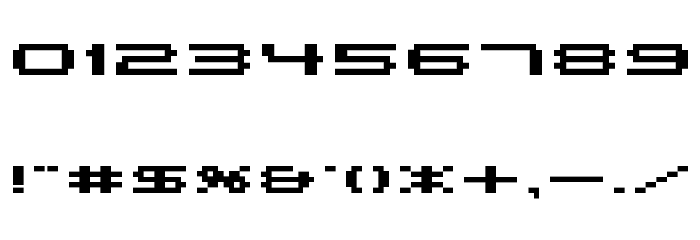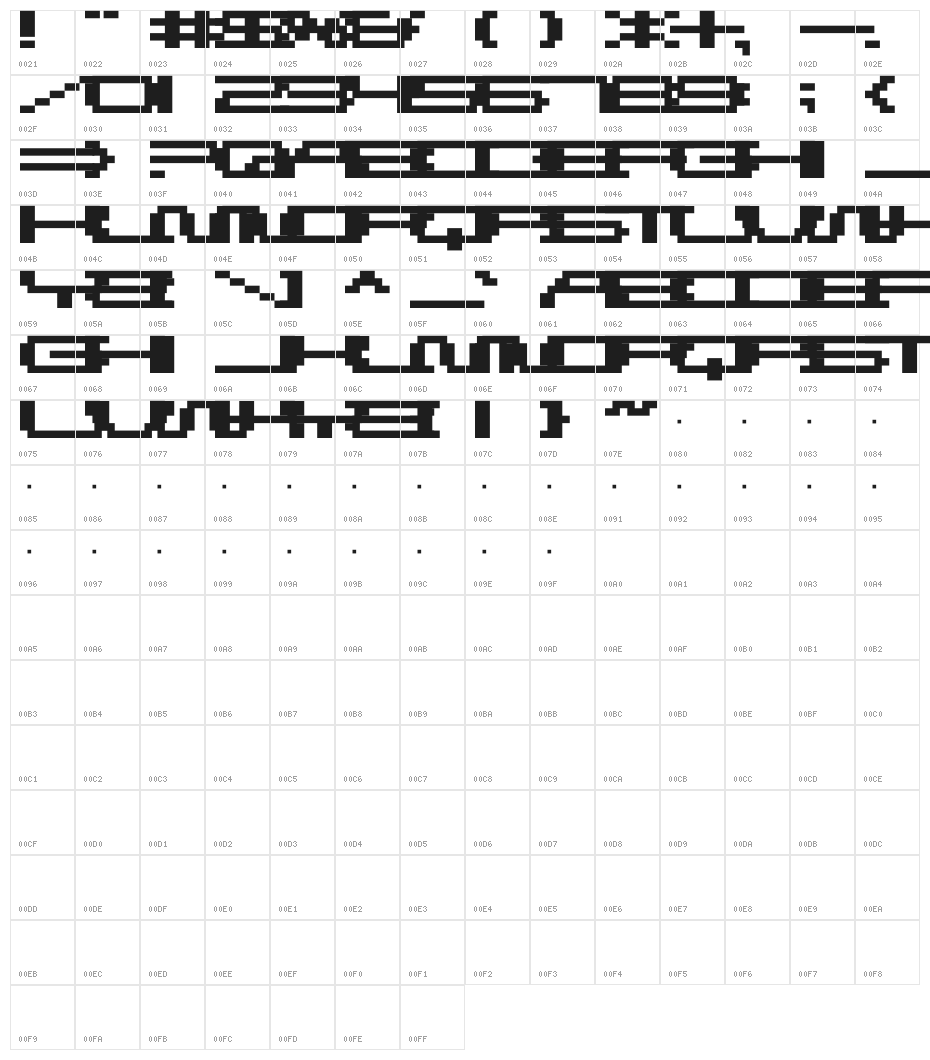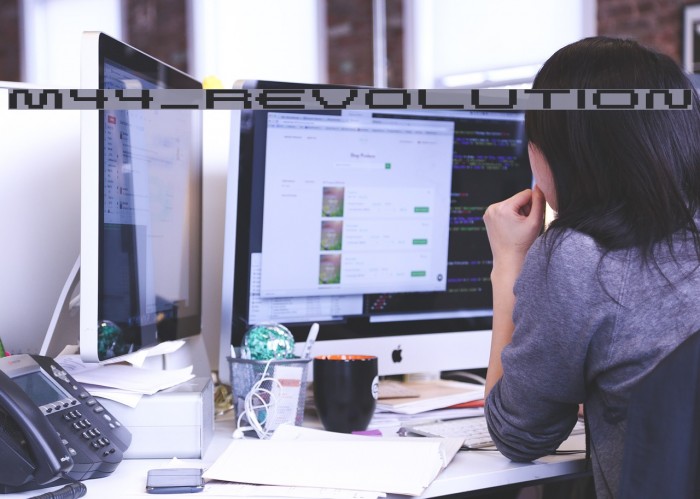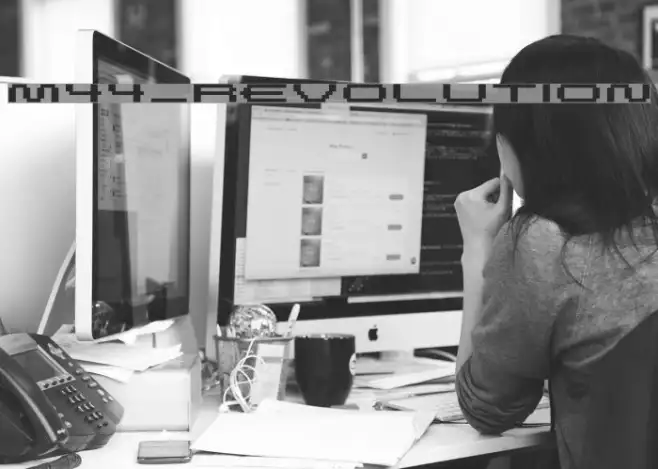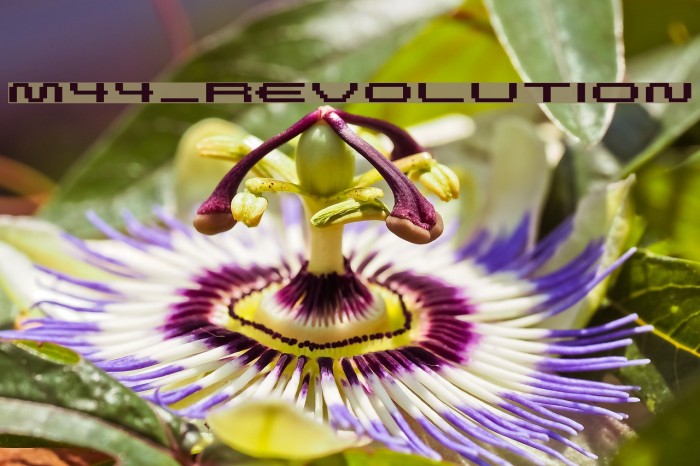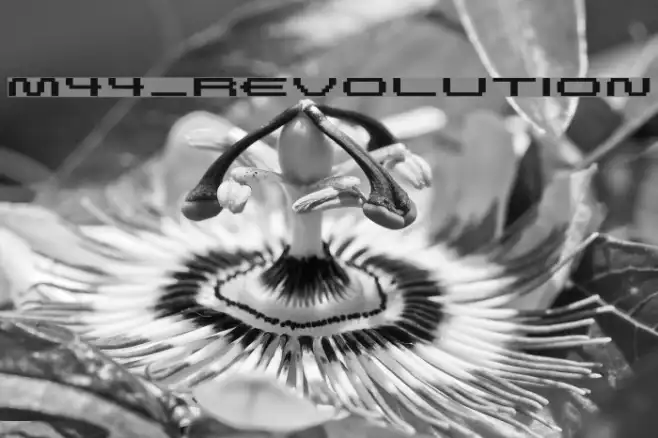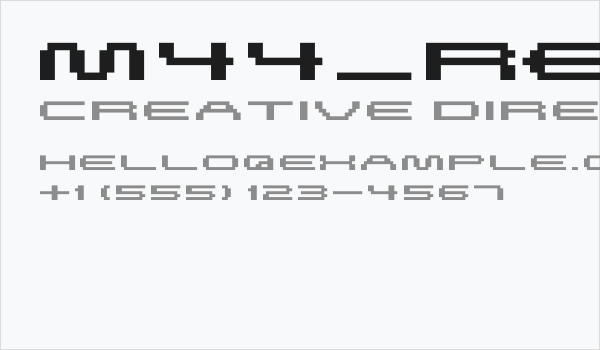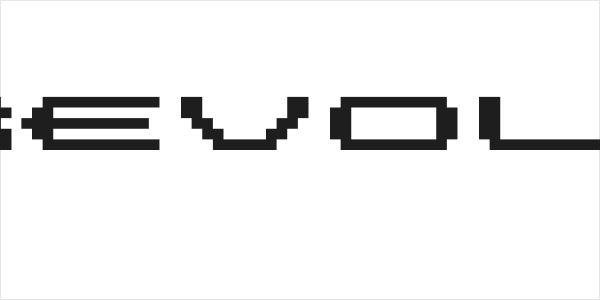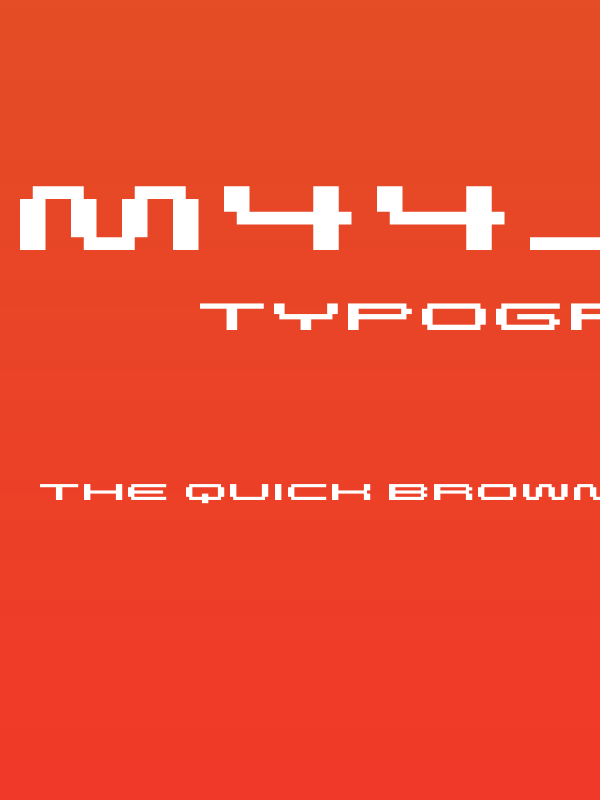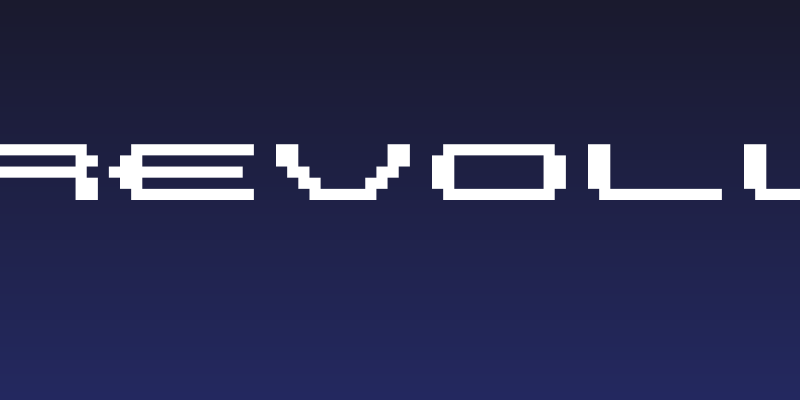
M44_REVOLUTION Font
M44_REVOLUTION Description
This font features a bold, geometric design with a distinctly digital aesthetic. The characters are constructed with sharp, angular lines and a blocky appearance, reminiscent of early digital or pixelated typefaces. The uppercase and lowercase letters maintain a consistent style, with the lowercase being slightly smaller but equally bold. The numerals and special characters follow the same design principles, ensuring uniformity across all glyphs. This font's unique style makes it stand out, ideal for projects that require a modern, tech-inspired look.
| Proposed Projects | Ideal for tech-related branding, video game design, digital art projects, and futuristic-themed posters. |